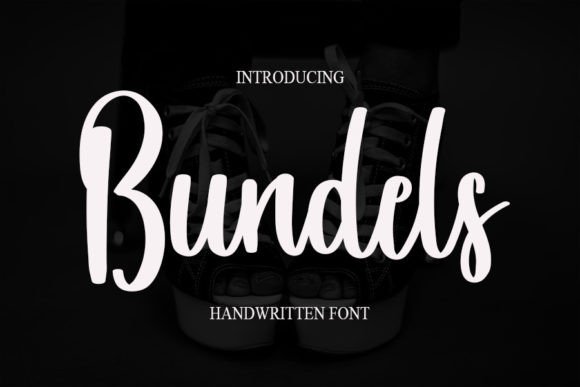
Journey into the realm of sophistication and elevate your designs with Bundels Font, the ultimate handwritten script font that exudes elegance and charm. Inspired by the timeless art of calligraphy, Bundels is meticulously crafted to bring a modern twist to classic forms. Its balanced and varied strokes, neither too thin nor too thick, create a visual harmony that captivates and mesmerizes. As you explore the depths of Bundels' character set, you'll discover a symphony of glyphs meticulously designed to enhance the beauty and impact of your projects. With Bundels, you possess the power to transform ordinary words into captivating expressions, leaving an indelible mark on the hearts of your audience.
Unleash your creativity and let Bundels guide you through a world of limitless possibilities. Whether you're crafting heartfelt invitations, designing captivating logos, or creating stunning social media graphics, Bundels has the versatility to adapt to your every need. Its modern vibe and spotless form make it the perfect choice for business grants, where professionalism and visual appeal are paramount. As you weave your words together using Bundels, you'll experience a sense of effortless flow and harmony, as if the font itself is guiding your hand towards greatness.
Step into a realm where imagination knows no bounds. With Bundels, your designs will transcend the ordinary and take on a life of their own. Prepare to be captivated by the beauty of every letterform, the elegance of each stroke, and the overall aura of sophistication that Bundels brings to your creations. As you witness the transformation of your projects, you'll understand why Bundels is the font that discerning designers and creative professionals choose to make their mark on the world.